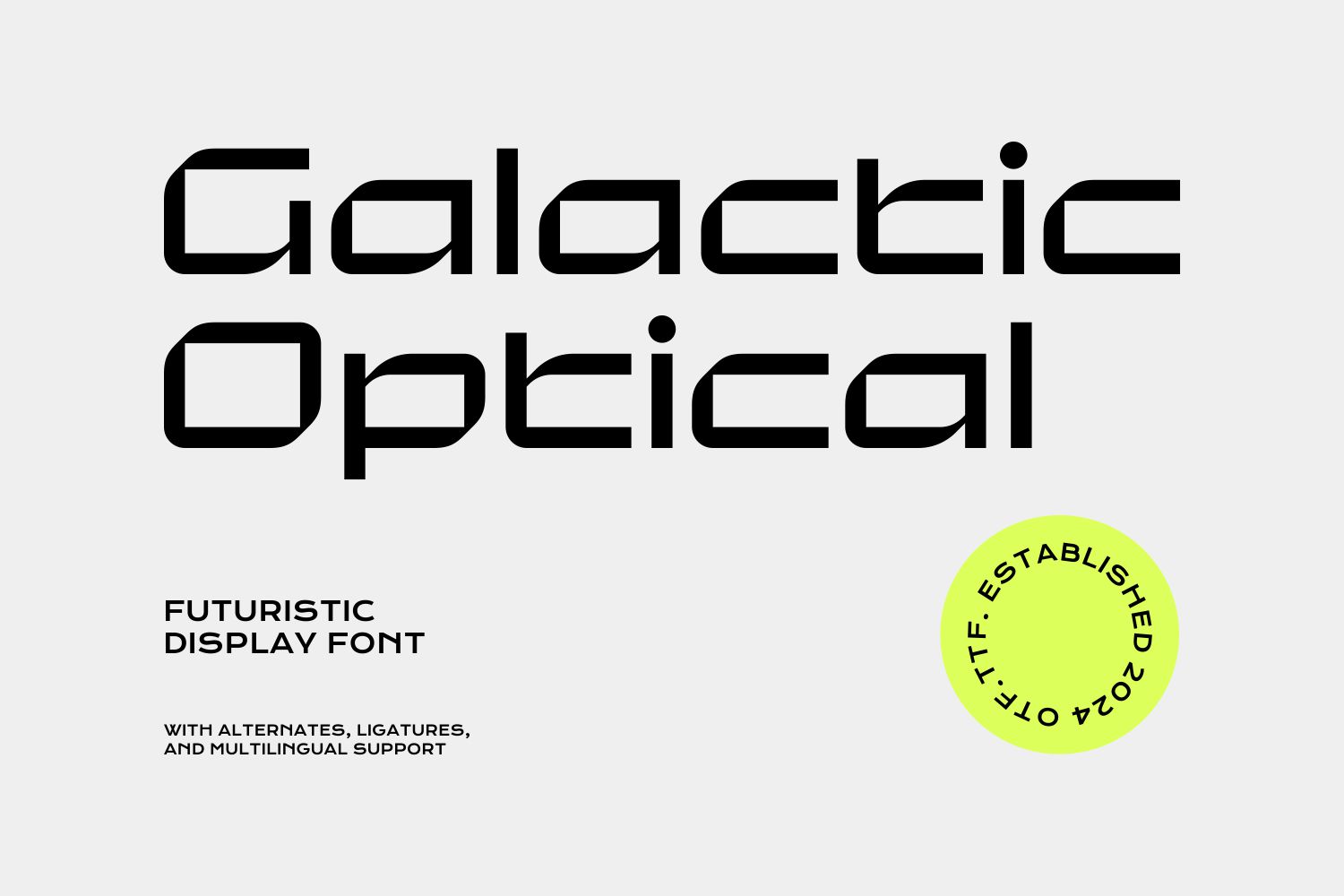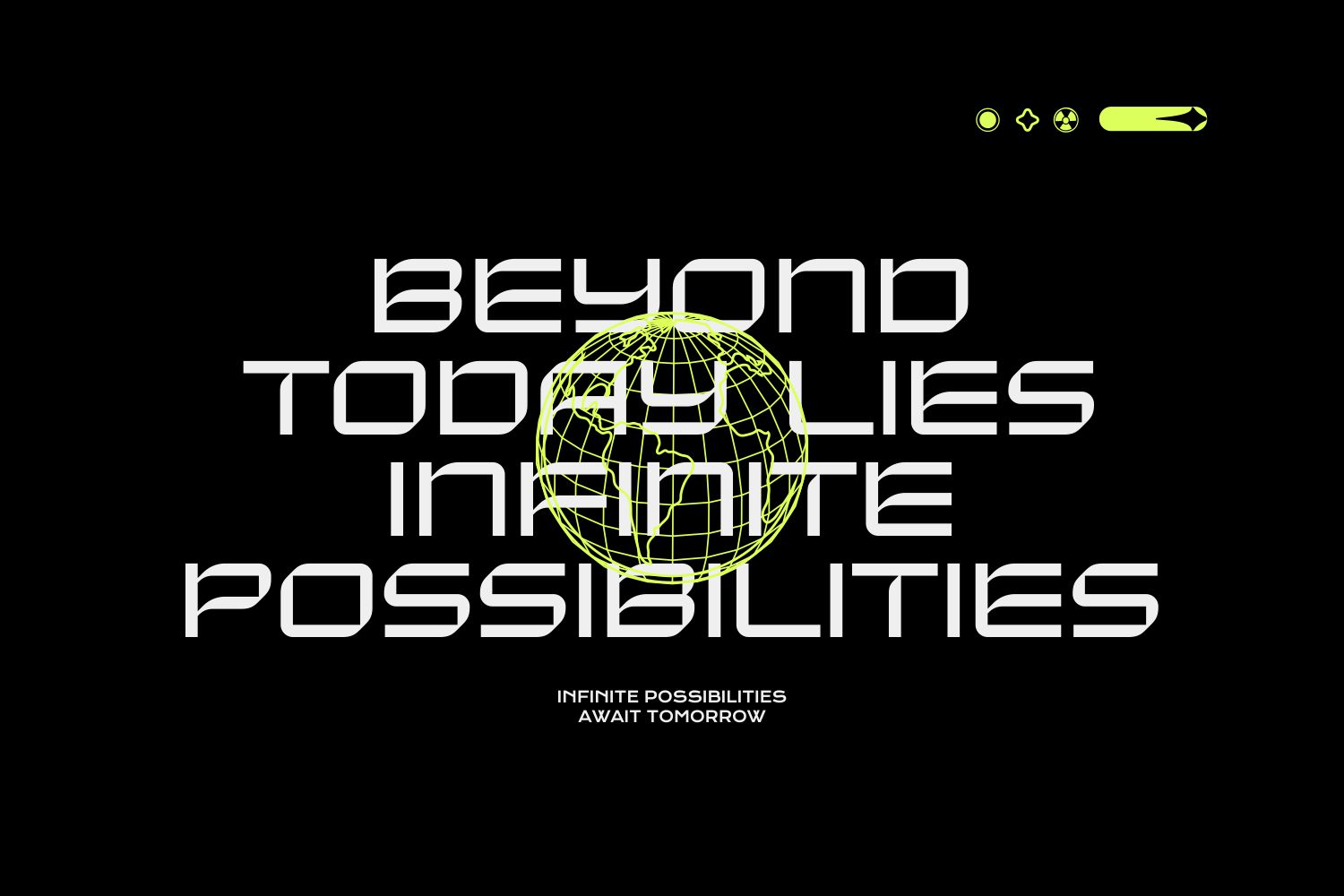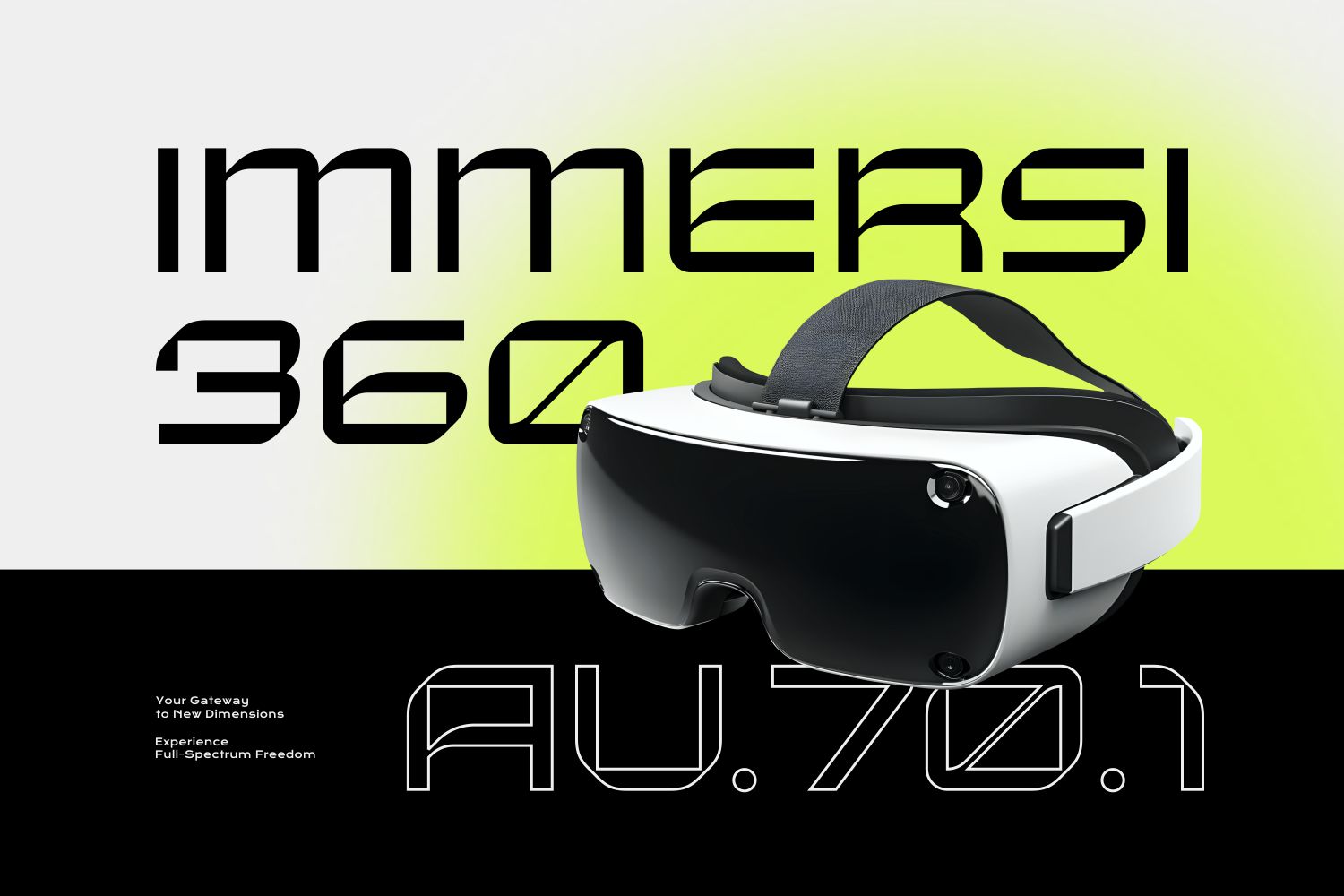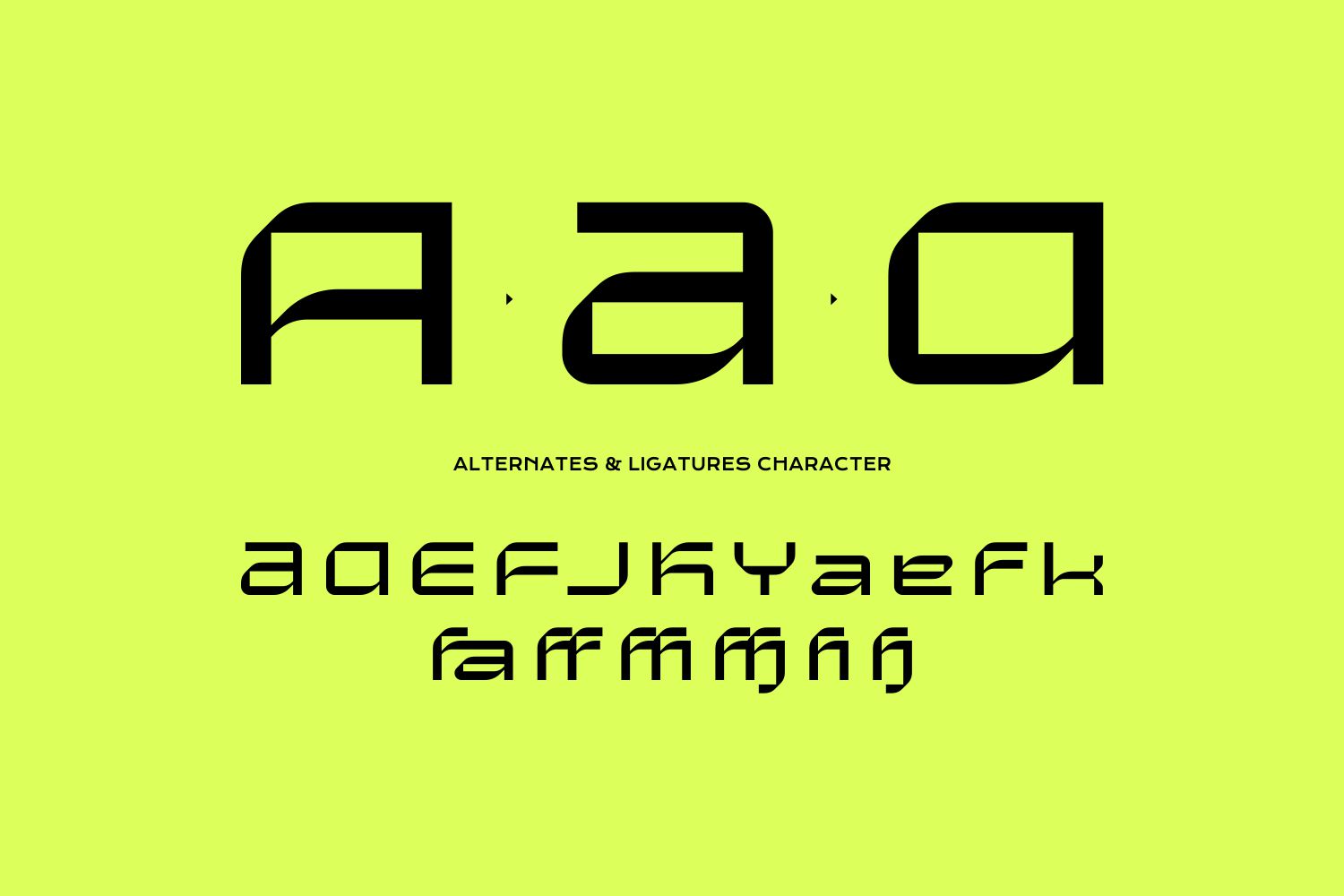
Galactic Optical is a futuristic display font that blends sleek geometric forms with a distinct sci-fi essence. Its rounded edges and innovative character shapes reflect a high-tech design language perfect for digital-age projects. With a balance of minimalism and bold personality, this font is made for space-inspired branding, modern interfaces, VR/AR product visuals, and tech-forward storytelling.
Packed with alternate characters, ligatures, and multilingual support, Galactic Optical opens up creative freedom across various platforms. Whether you’re crafting a logo, a cyberpunk poster, or UI text for an immersive experience, this font delivers a forward-thinking and experimental aesthetic that propels any design into the future.